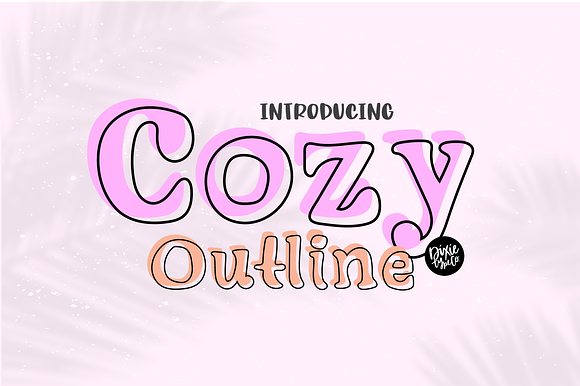
COZY OUTLINE Serif + Outline Font
"Cozy Outline" hand lettered bold serif installable font + outline font. { A typographic font hand lettered with love by Dixie Type Co. }
Cozy is a bold and soft hand lettered serif font. It makes a statement in a friendly way! This serif font also comes with a matching outline font that you can layer on top of the solid version.
- This serif font also comes with a matching outline font that you can layer on top of the solid version.